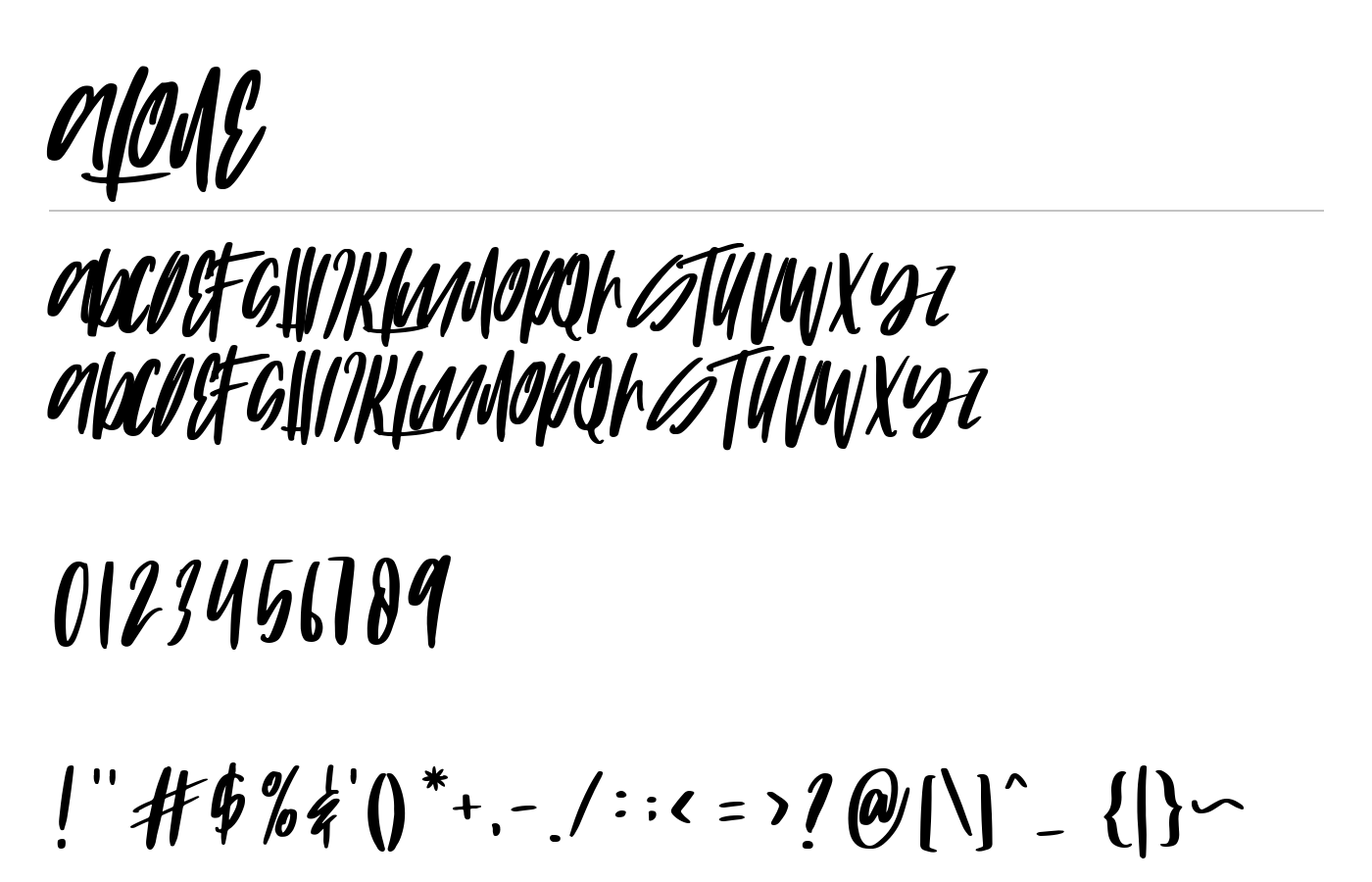
ALONE is a bold, expressive script font with a dynamic, hand-brushed style that feels personal and energetic. Its tall, narrow letterforms and strong stroke variations give it a modern, edgy vibe perfect for creative branding, posters, and fashion-forward designs looking to convey individuality and youthful spirit. This font works best in headlines and logos where its unique personality can stand out and make a striking impression.
ALONE Font